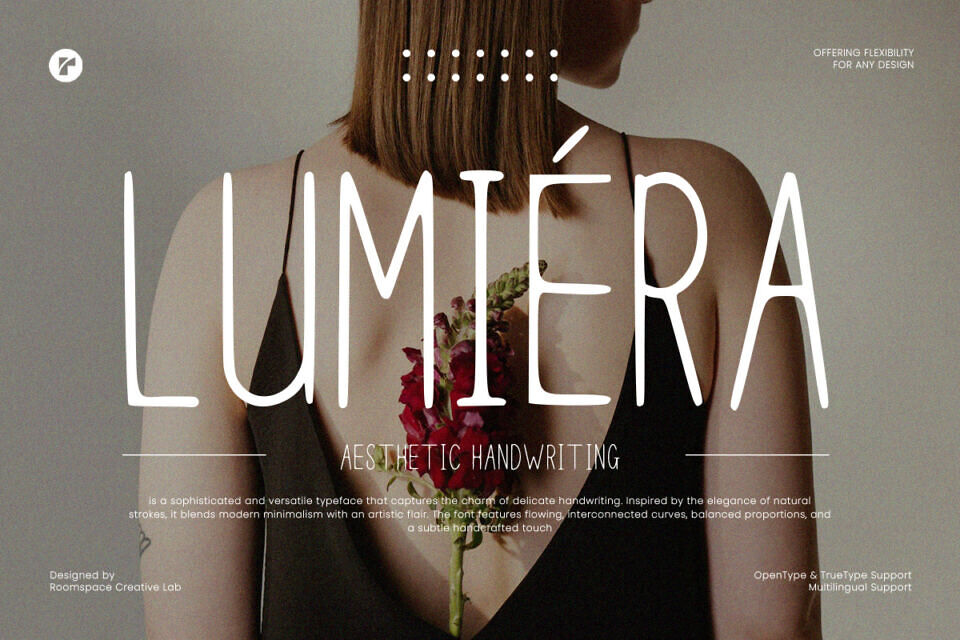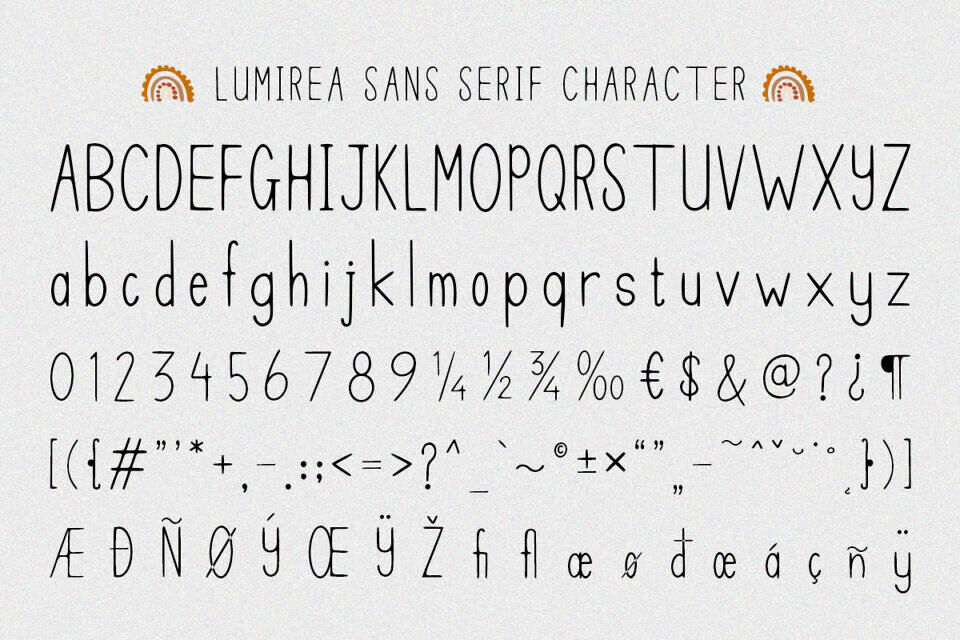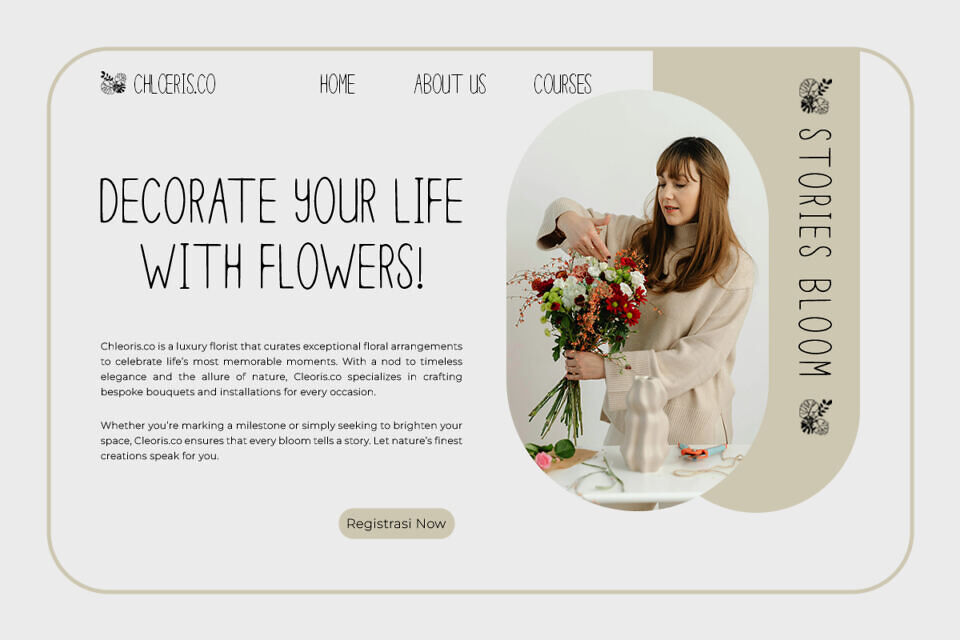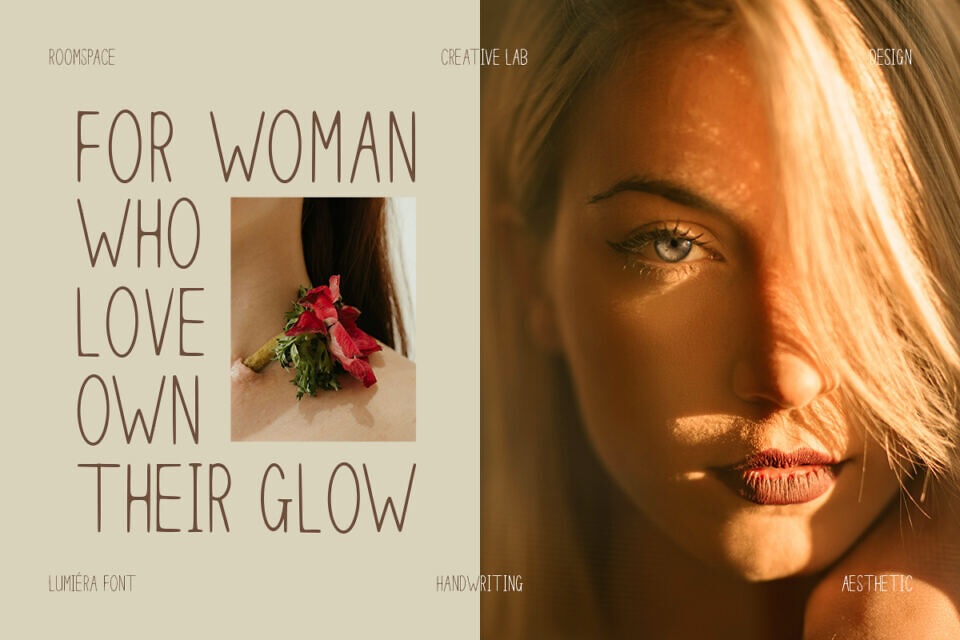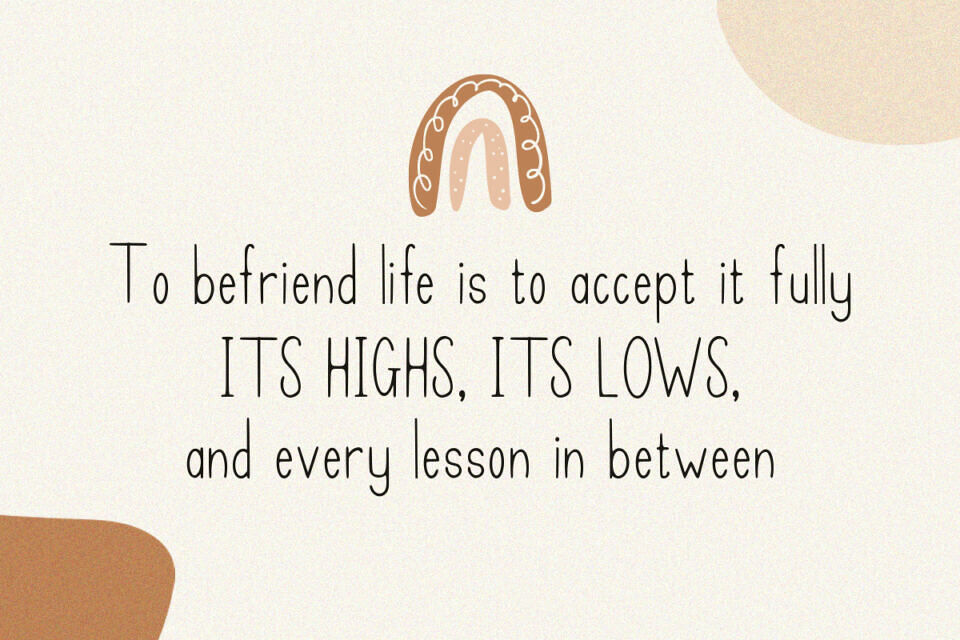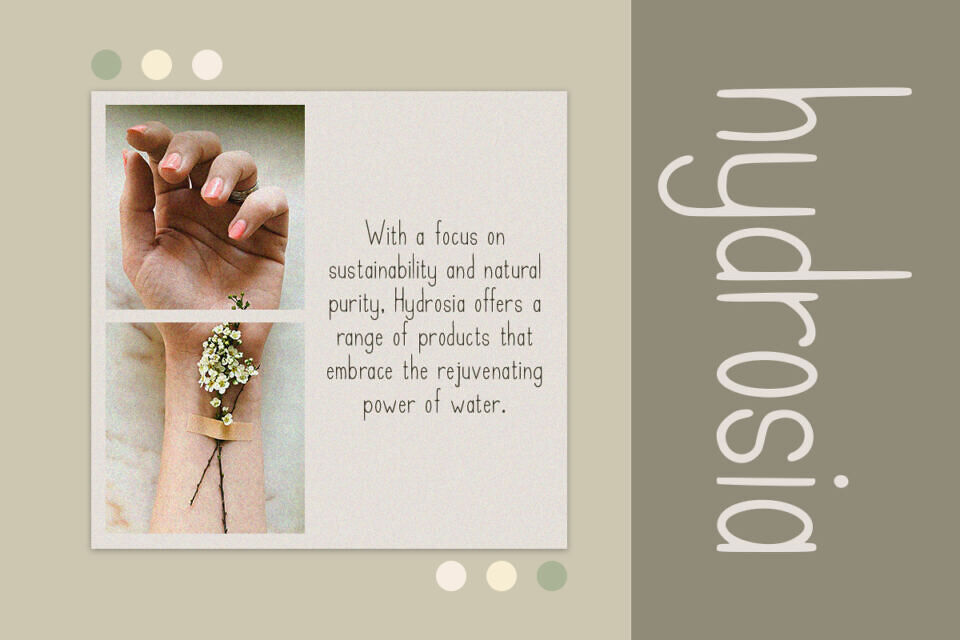
Lumirea Font
Lumirea is a captivating modern aesthetic handwriting font that beautifully merges simplicity with artistic elegance. This versatile typeface is designed to elevate your creative projects, offering a contemporary yet timeless appeal.
It’s perfect for branding, wedding invitations, social media graphics, and editorial designs. Inspired by natural, flowing strokes, Lumiéra brings a touch of minimalism with handcrafted details. Its smooth curves and unique character provide a personal and sophisticated vibe, making it a standout choice for both professional and creative works.